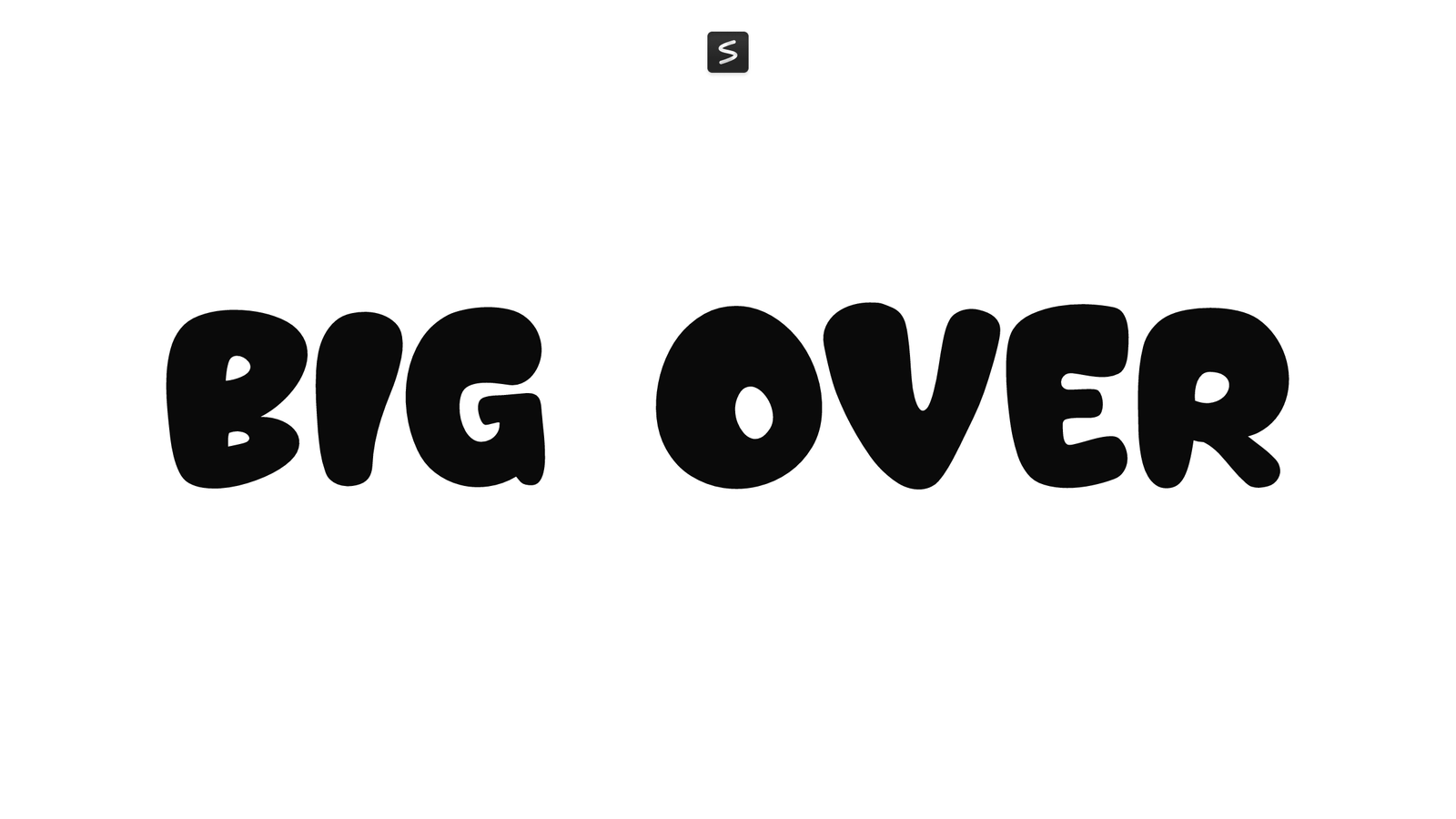
Big Over is a chunky, rounded display font inspired by cartoon and graffiti aesthetics. Its oversized, bubbly letterforms have a soft, approachable feel that reads instantly playful rather than aggressive. Designed by Khurasan™, the font prioritizes personality over precision, with generous curves and thick strokes that give text a friendly, almost inflatable quality.
The rounded shapes work well in children’s design, comics, posters, and informal branding where you need impact without formality. Its bulbous forms are legible even at smaller sizes, though the font truly shines when sized large for headlines and display work. The chunky construction means it holds up well in print and digital alike.
Use Big Over for children’s book covers, playful packaging, casual video game UI, zine headers, sticker designs, or any project that benefits from a warm, approachable typeface. It adds personality without requiring careful spacing or sizing to work.